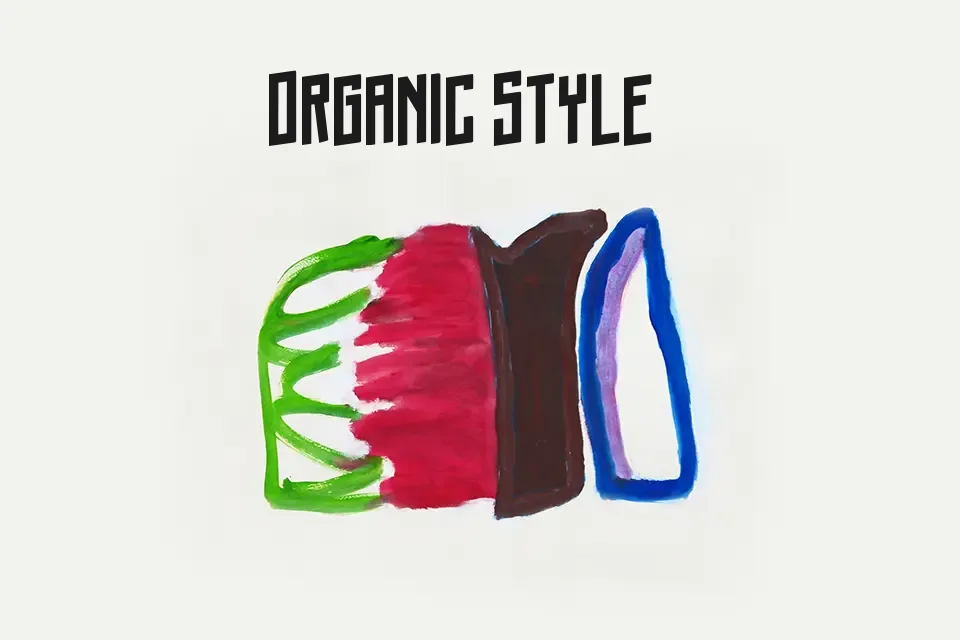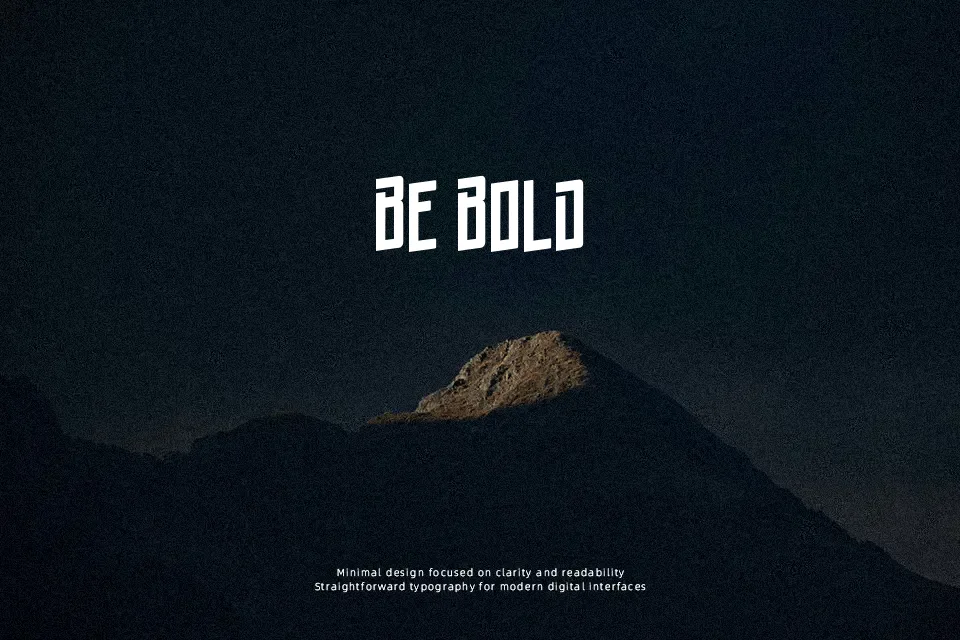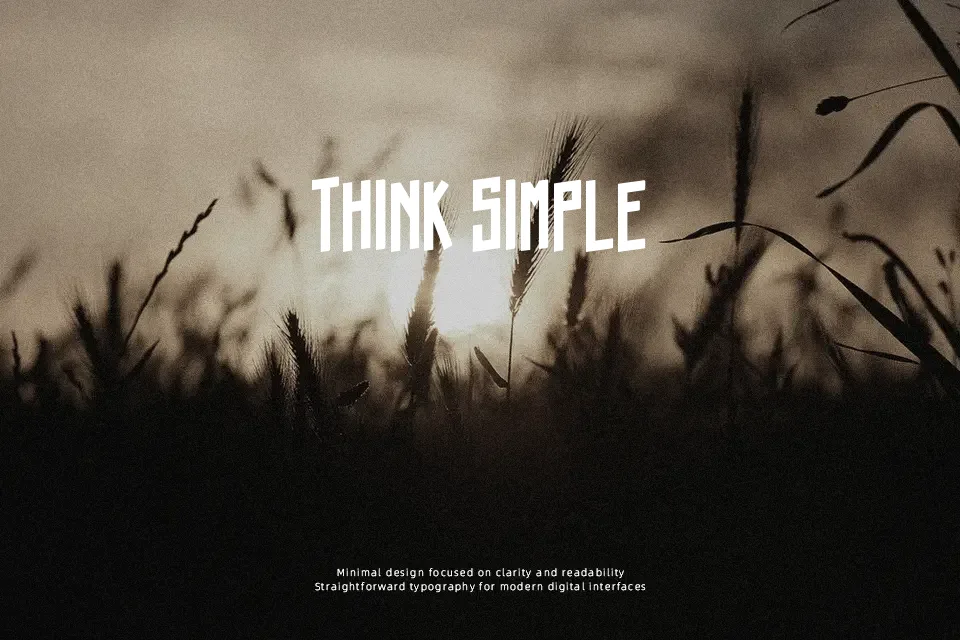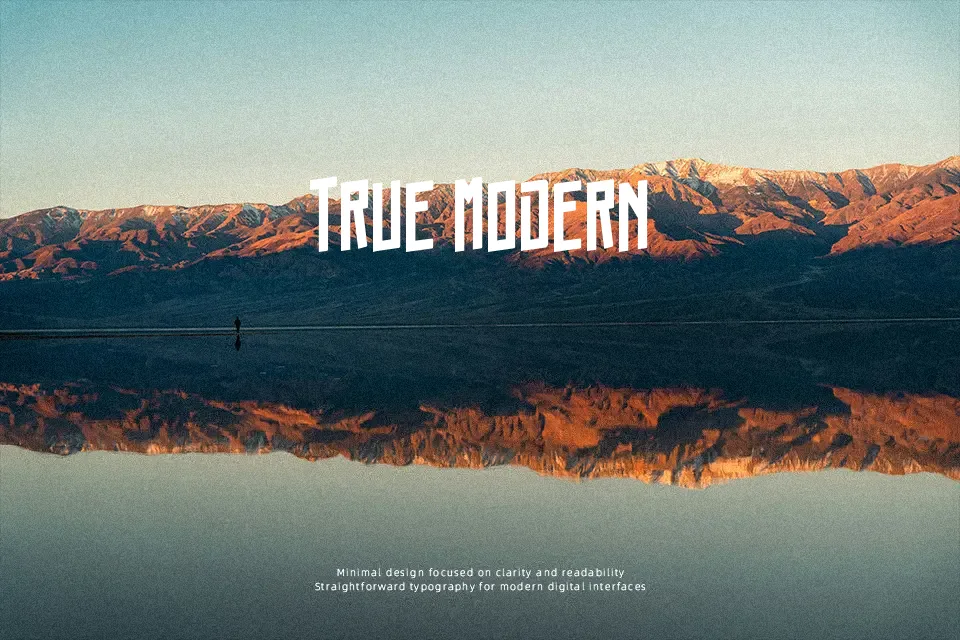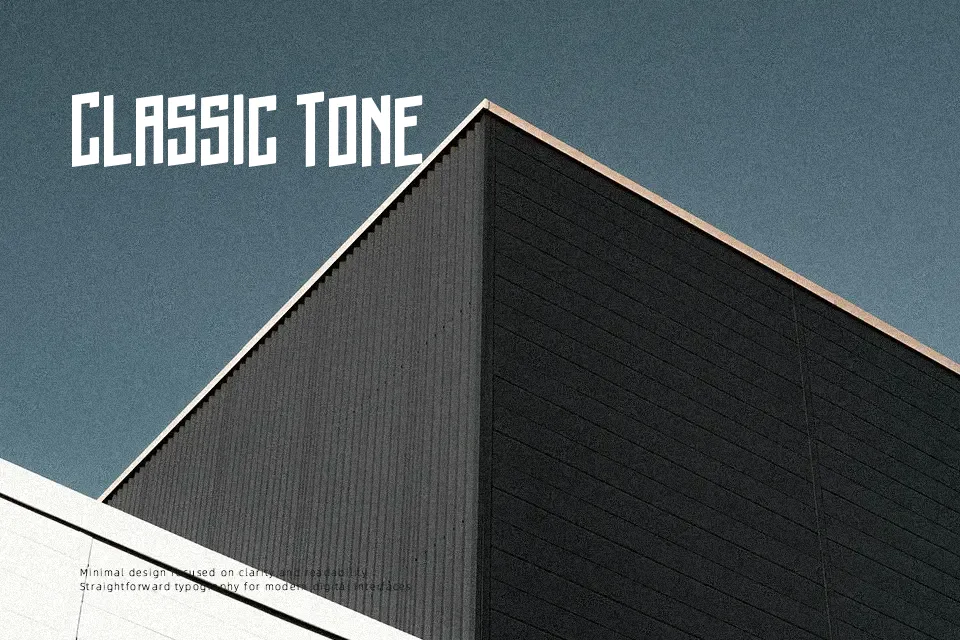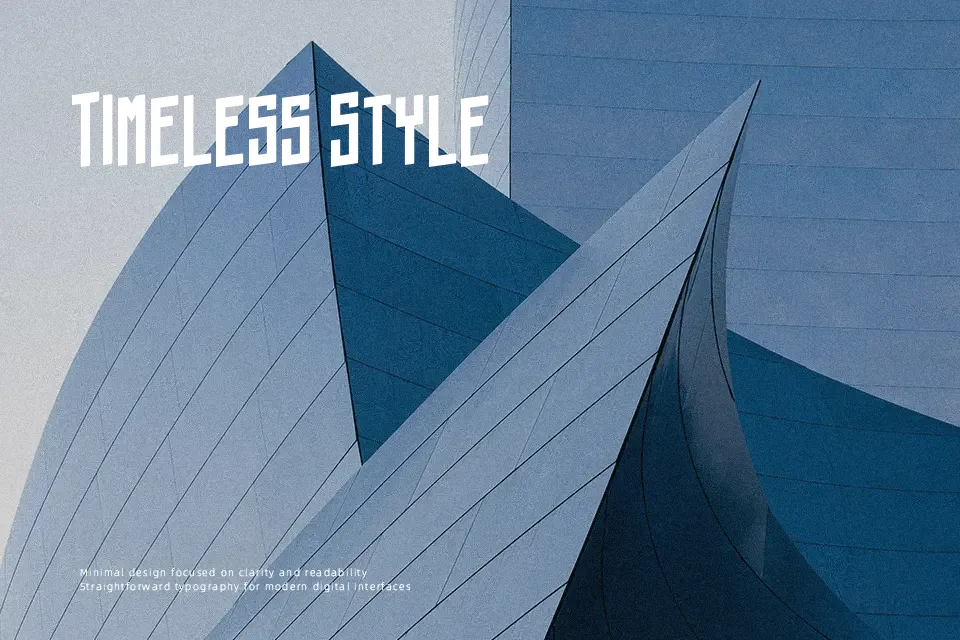
Chorizo Cartel Font
Chorizo Cartel Font showcases an imposing display structure defined by ultra-bold strokes, tight character spacing, and compressed proportions. The letterforms feature distinctive heavy stems with stylized geometric contours that command immediate visual focus. Spacing between characters is compact, generating a dense visual rhythm suited for impactful headers, event flyers, and thematic product packaging. In larger sizes, the glyphs maintain strong recognition and graphic strength. However, the condensed counter spaces and heavy stroke weight significantly reduce legibility in continuous body copy or small interface labels. For title treatments and short promotional banners, the typeface creates an assertive, memorable aesthetic.
Best For: food truck signage, music festival posters, thematic product packaging, apparel graphics
Not Ideal For: long paragraph text, corporate reports, mobile app body copy, dense editorial layouts
Perfect for branding, headline, and logo, with a bold and condensed style.